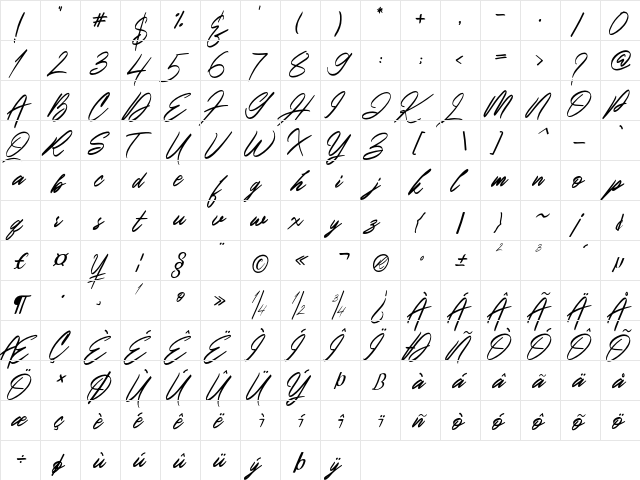
Italian Horskey Demo Regular
| Foundry | Mindtype Co. |
| Designer | Putra Khan |
Design Context for Italian Horskey Demo Typeface
Italian Horskey Demo is a composed and adaptable typeface that performs quietly and consistently across a wide range of design contexts.